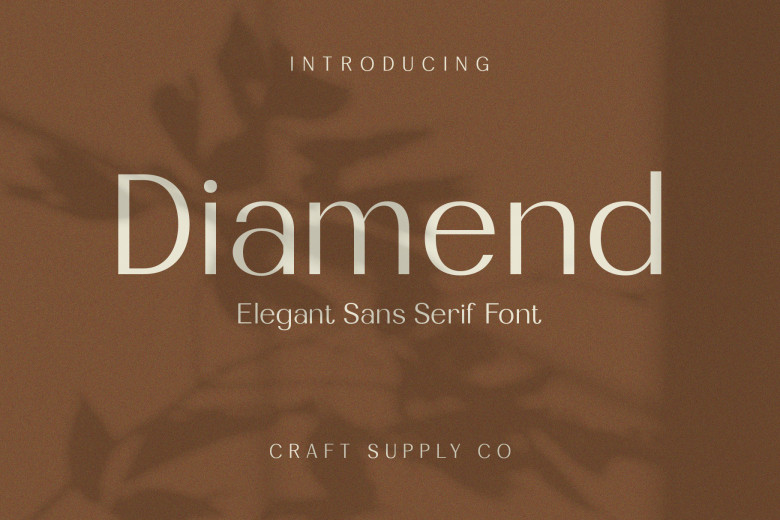
Diamend Font
Diamend combines modernity and sophistication into an elegant sans serif typeface. Known for its refined lines and sleek appearance, Diamend lends timeless elegance to designs by adding refined lines and smooth surface textures. Diamend adds charm that will expand creative possibilities and elevate designs alike.
This font can be used for various applications, including greeting cards, packaging designs, branding materials and posters. Have fun playing around with this font!
Diamend Sans Serif Font